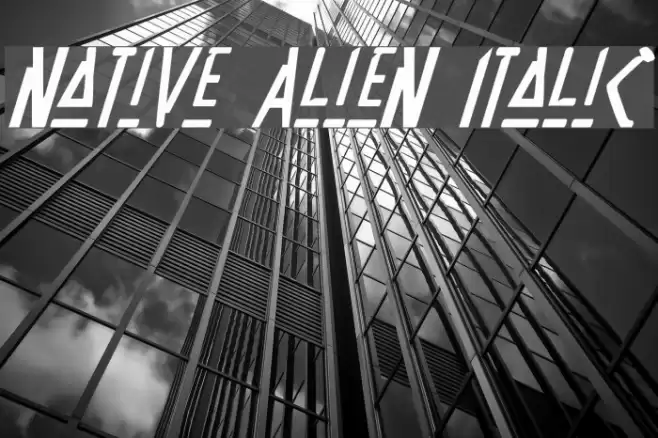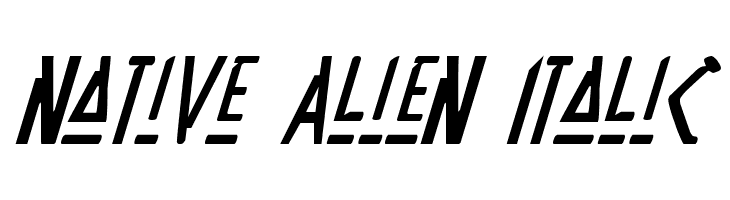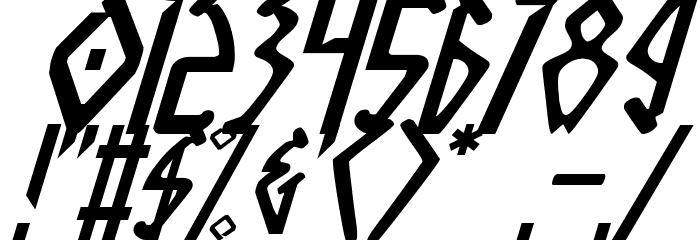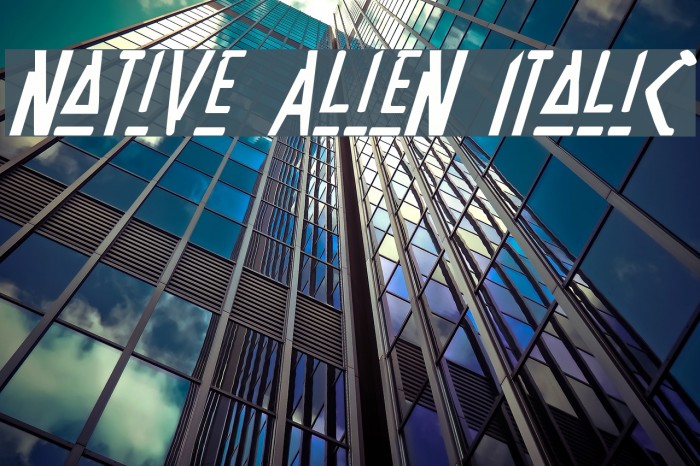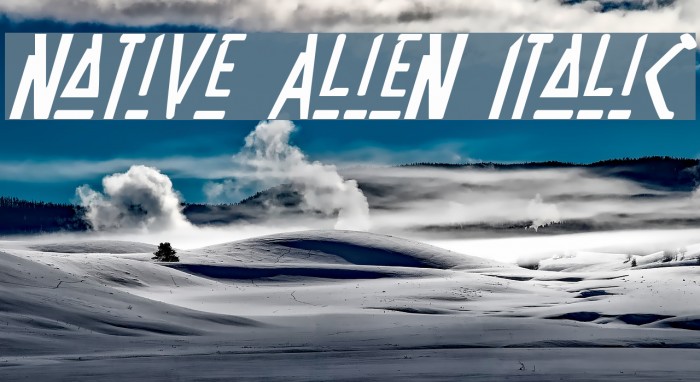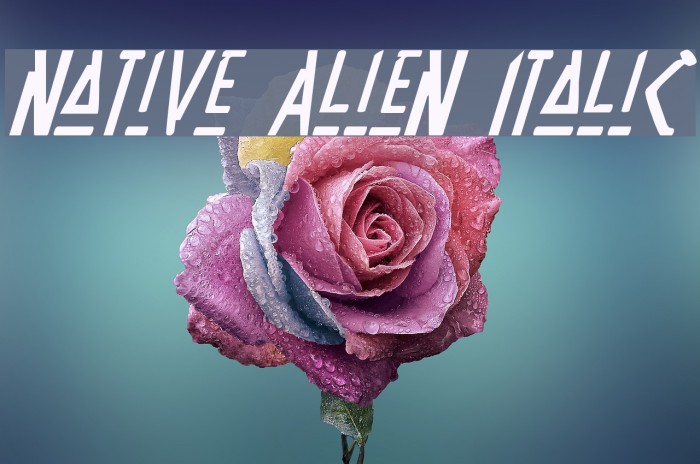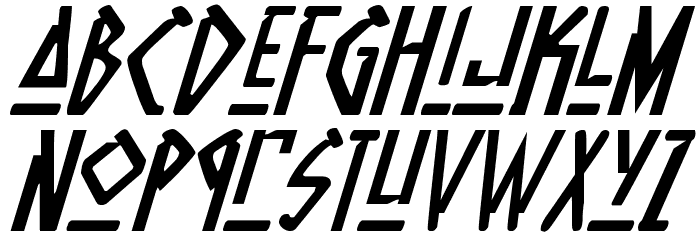
Native Alien Italic Font
Native Alien Italic Description
This font features a futuristic and geometric design, characterized by sharp angles and unique, alien-like shapes. The letters are italicized, giving them a dynamic and forward-leaning appearance. The uppercase and lowercase letters maintain a consistent style, with bold strokes and distinct, angular forms. Numbers and special characters follow the same design principles, ensuring a cohesive look across all elements. The font's boldness and distinctiveness make it stand out, ideal for projects requiring a modern and unconventional aesthetic.
A futuristic, geometric italic font with bold, angular shapes from Decorative fonts.
- Proposed Projects: Ideal for sci-fi themed designs, video game interfaces, movie posters, and branding for tech companies.